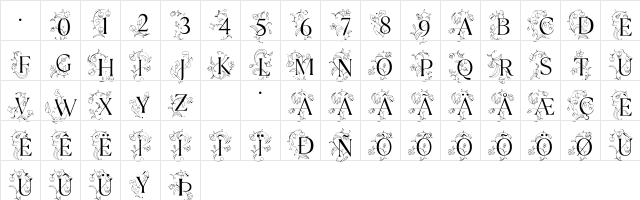
TT Ramillas Initials Trl Lt
Style: Lt
Designer: Designed by Pavel Emelyanov, Yulia Gonina, Marina Khodak, Ksenia Ushakova. Technical designers Yuriy Nako, Ivan Gladkikh, Victor Rubenko.
Design Context for TT Ramillas Initials Trl
TT Ramillas Initials Trl is a composed and adaptable typeface that performs quietly and consistently across a wide range of design contexts. Its slender proportions lend an understated elegance to any composition.